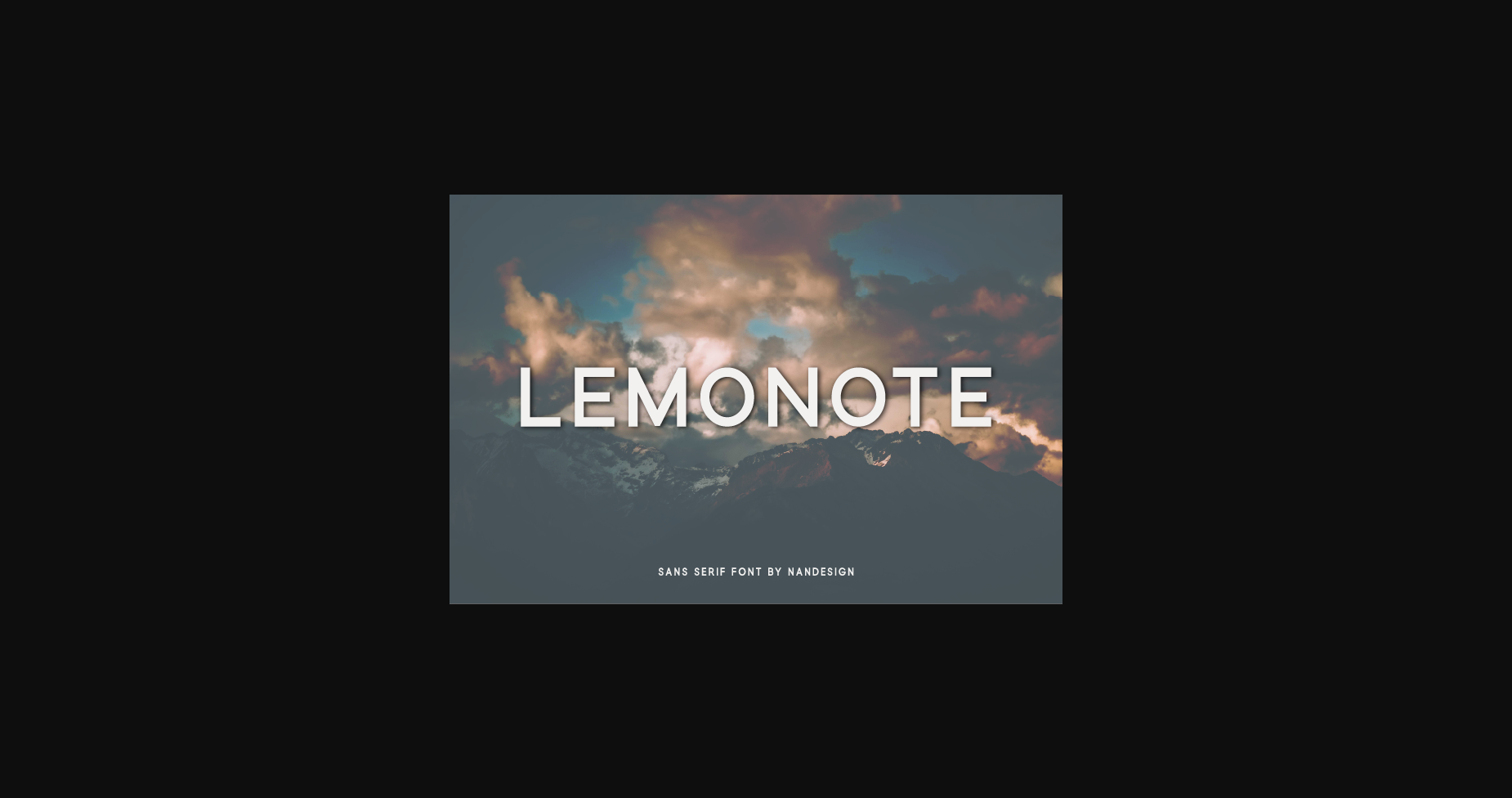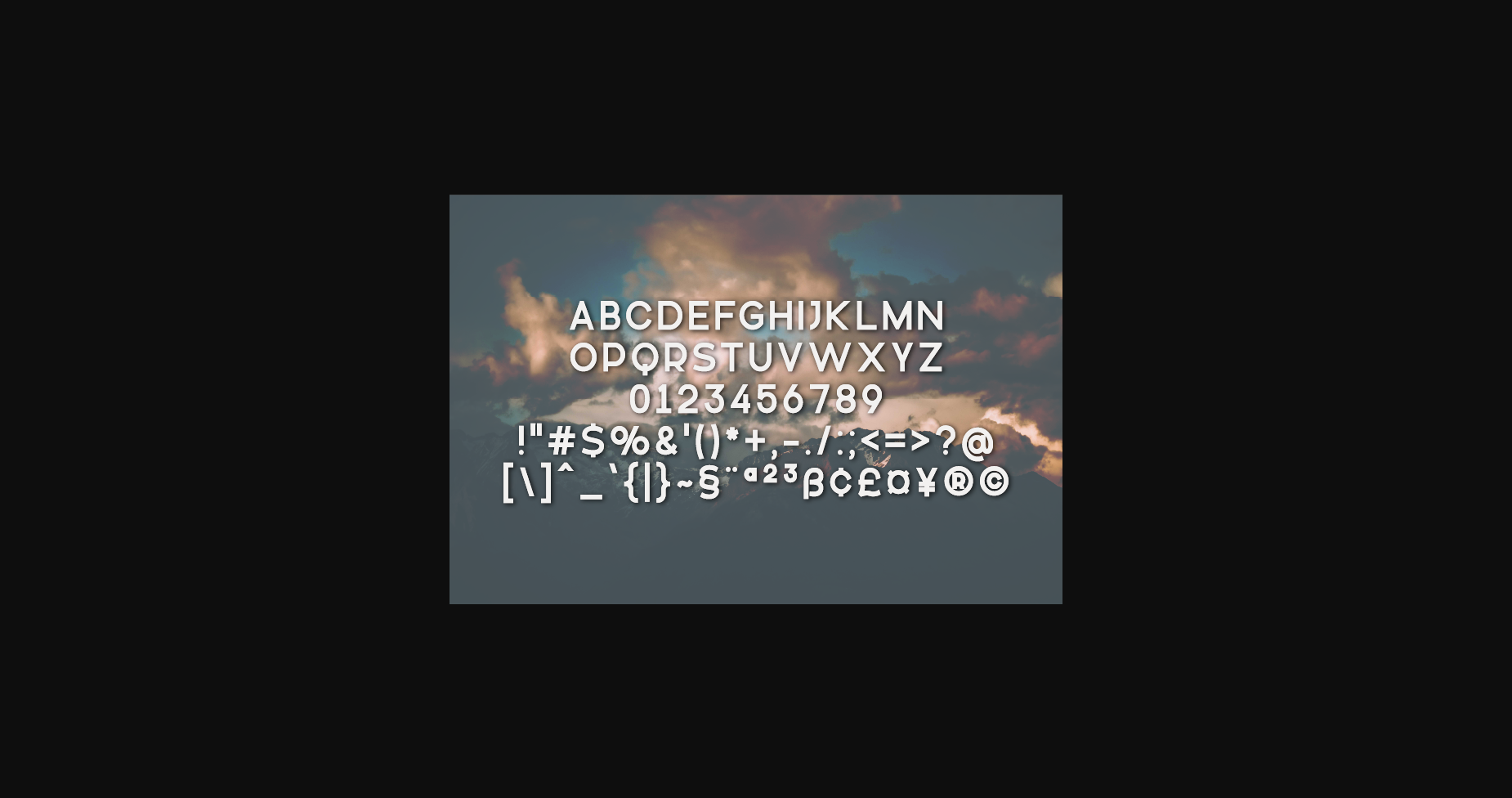
About Lemonote Font
Lemonote is a clean, slim and simple sans serif font.
It is perfect for product packaging, branding project, magazine covers, social media, wedding, or just used to express words above the background.